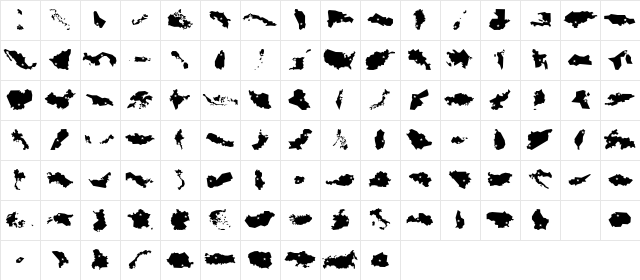
Mini Pics Global N Capital
Style: Global N Capital
Design Context for Mini Pics
Mini Pics is a composed and adaptable typeface that performs quietly and consistently across a wide range of design contexts.